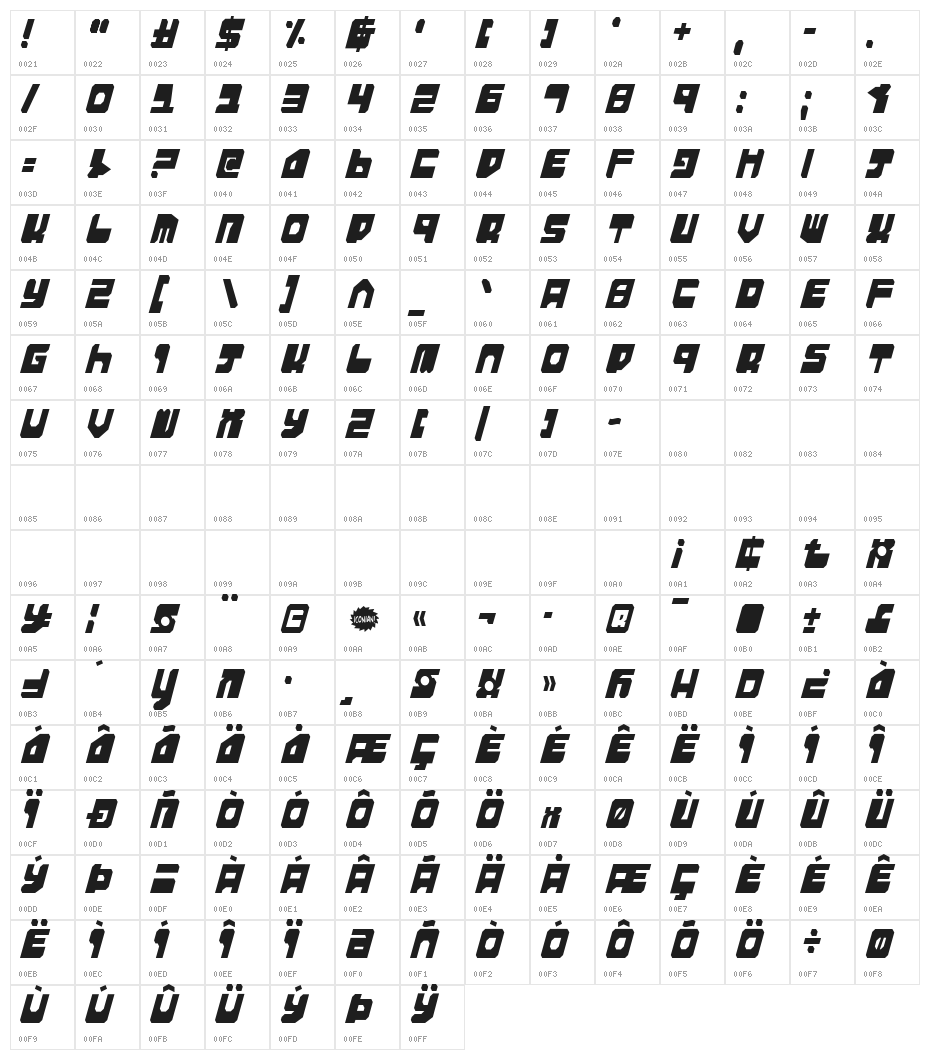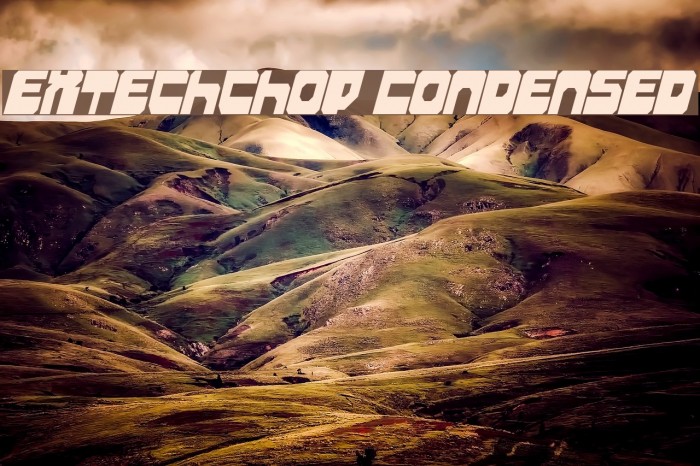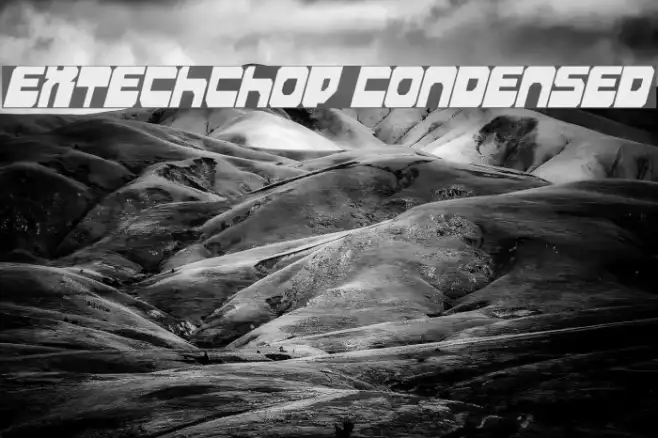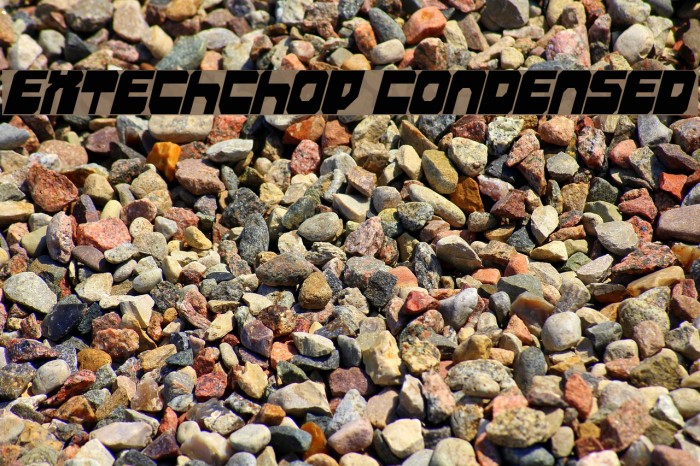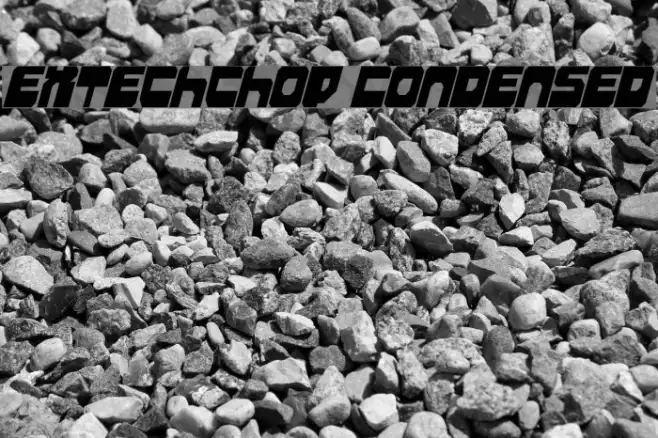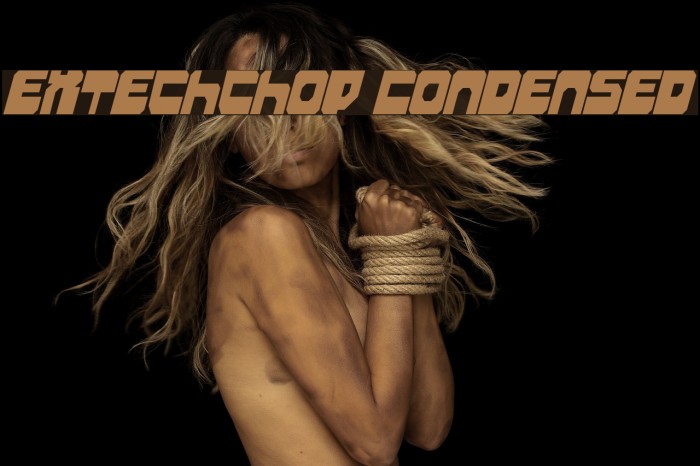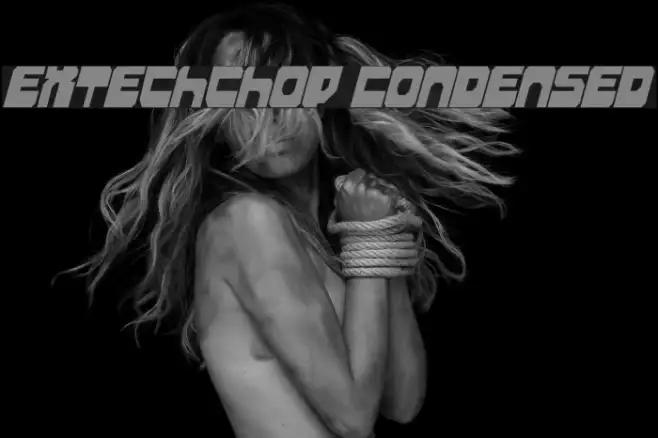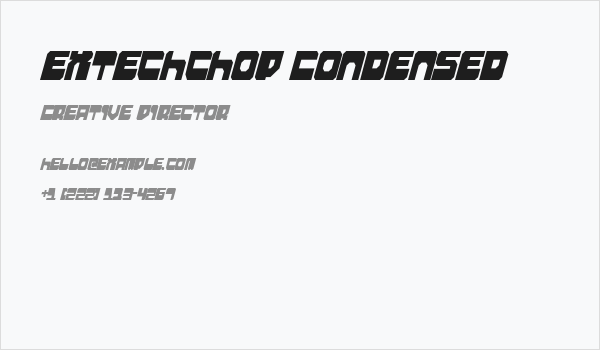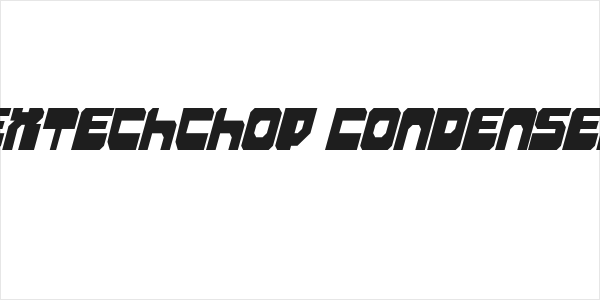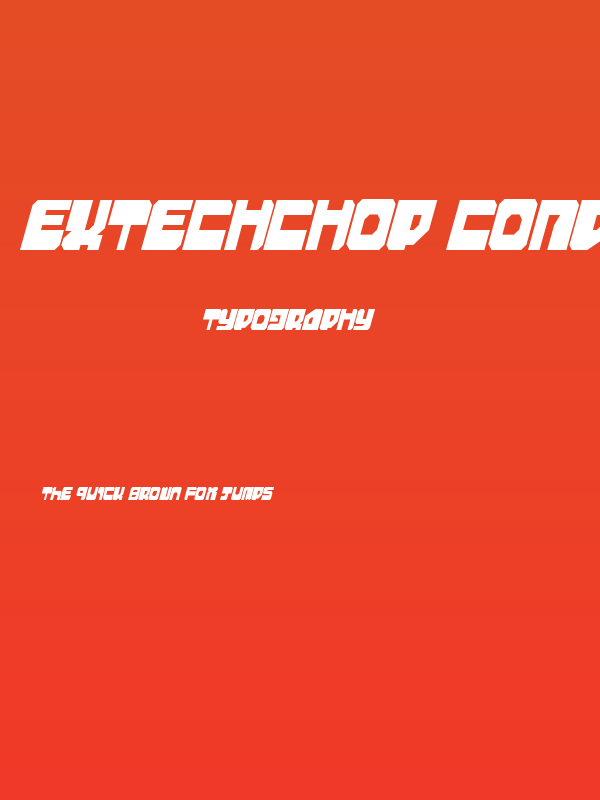
Extechchop Condensed Font
Extechchop Condensed Description
This font features a bold, geometric style with sharp angles and a condensed form. The characters are designed with a futuristic aesthetic, emphasizing a strong, impactful presence. The uppercase and lowercase letters maintain a consistent height, contributing to a uniform appearance. The numbers and special characters follow the same angular design, ensuring cohesion across all elements. This font is ideal for creating a striking visual impact, suitable for modern and dynamic design projects.
| Proposed Projects | Ideal for branding, posters, video game graphics, and sci-fi themed designs. |